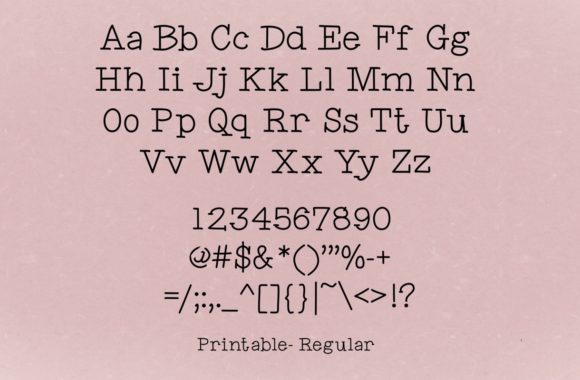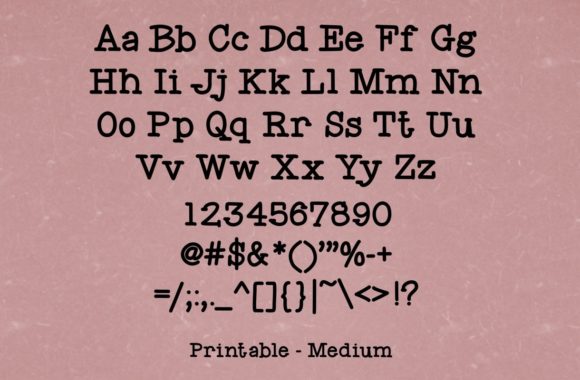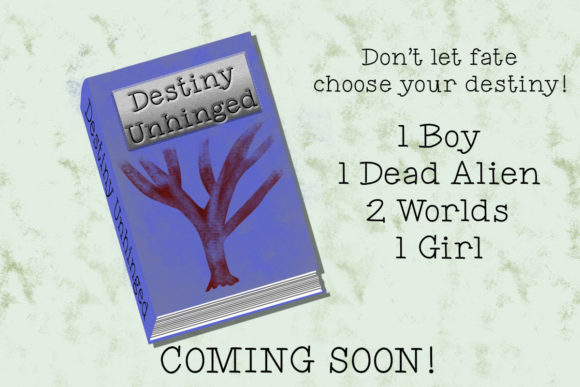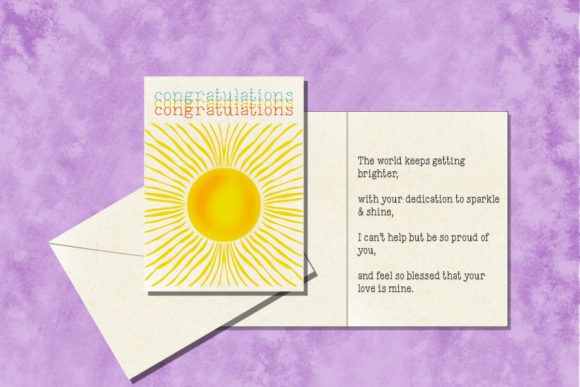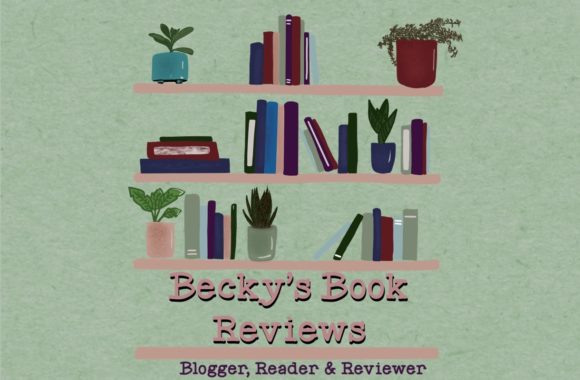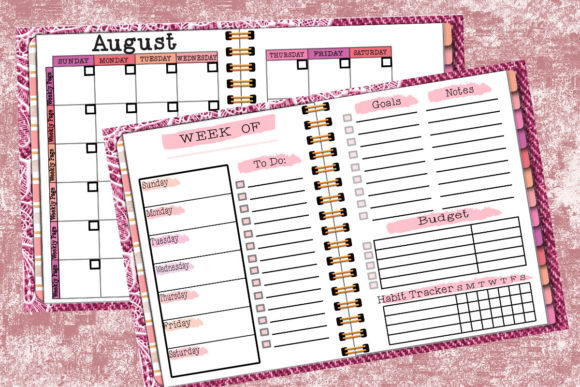
Introduction to Printable Font
Do you remember the moment when you stumbled upon that perfect design element that elevated your creative project from ordinary to extraordinary? For many designers, it’s a thrill that never gets old. Today, we’re excited to introduce you to the “Printable Font”, a high-quality slab serif font that’s about to become your new design best friend.
Whether you’re working on a branding project, a digital illustration, or a graphic design, the Printable Font is the perfect design resource to add a touch of sophistication and style. With its clean, thin, and smooth vibe, this adaptable font is sure to impress. Plus, with a free download option available, you can start experimenting with it right away. And the best part? The transparent background makes it easy to integrate into any design, ensuring a seamless look and feel.
Honest Review: Printable Font
As a designer, I’m always on the lookout for high-quality design resources to elevate my creative projects. I recently came across Printable Font, and I’m excited to share my honest review.
Overall, I’m impressed with Printable Font’s high-quality designs and user-friendly interface. While there are some limitations, the free download option and transparent background feature make it a valuable design resource for my creative projects. I’d definitely recommend checking it out!
Printable Font
A high-quality design resource, Printable Font offers a wide range of creative project solutions. With its transparent background, you can easily integrate it into your designs, making it a versatile design tool.
Tips for Getting the Most Out of Printable Font
For optimal results, use Printable Font with a transparent background to ensure seamless integration with your designs.
Printable Font is ideal for:
- Creating high-quality digital prints
- Designing marketing materials
- Developing creative projects